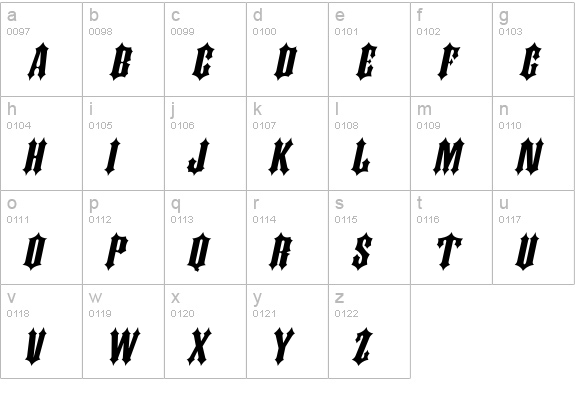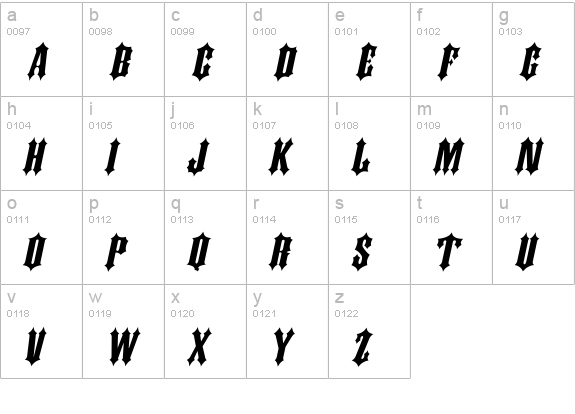
Ironwork Extended Italic Font Details
Ironwork Extended Italic is a distinctive, extended-width, italic variant in the Ironwork typeface family \xE2\x80\x94 well suited to design and typography projects.
Ironwork Extended Italic is a stunning and versatile typeface that exudes elegance and sophistication. With its graceful curves and angled letterforms, this font captures attention and adds a touch of modernity to any design project. Crafted by renowned typographers, Ironwork Extended Italic offers a unique balance between classic and contemporary design elements. The italicized version of this font adds a sense of dynamism and movement, making it perfect for conveying a sense of energy and excitement in your designs. This font is ideal for a wide range of applications, from branding and advertising to editorial design and web graphics. Whether you're creating a logo, designing a book cover, or crafting a social media post, Ironwork Extended Italic will elevate your design to new heights. The beauty of Ironwork Extended Italic lies not only in its aesthetic appeal but also in its functionality. The carefully designed letterforms ensure legibility at various sizes, making it suitable for both small and large-scale projects. Its versatility allows it to be used in both headline and body text, providing a cohesive and harmonious visual experience. One of the most appealing aspects of Ironwork Extended Italic is that it is freely available to download at FontsMarket.com. This means that designers and creatives can access this exceptional typeface without any cost, making it an excellent choice for those on a budget or seeking high-quality fonts without compromising on style. In conclusion, Ironwork Extended Italic is a remarkable font that combines elegance, versatility, and functionality. Its italicized version adds a touch of dynamism, making it perfect for a variety of design projects. And with the added benefit of being freely available to download at FontsMarket.com, this font is a must-have for any designer looking to create visually stunning and impactful designs.